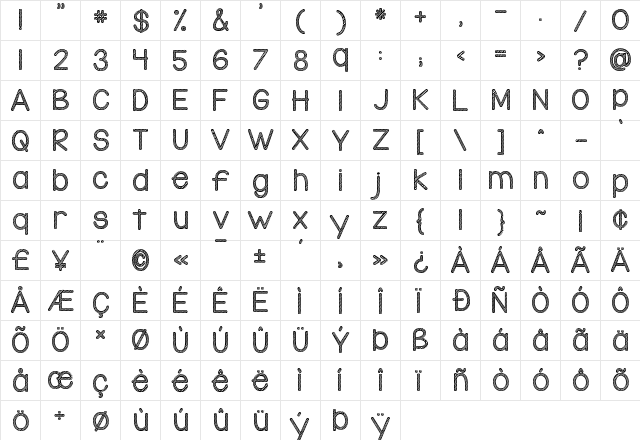
KG Candy Cane Stripe Regular
| Foundry | Kimberly Geswein |
| Designer | Kimberly Geswein |
Design Context for KG Candy Cane Stripe Typeface
KG Candy Cane Stripe takes a measured approach to typography — its balanced proportions and neutral character make it a reliable workhorse for both digital and print work.